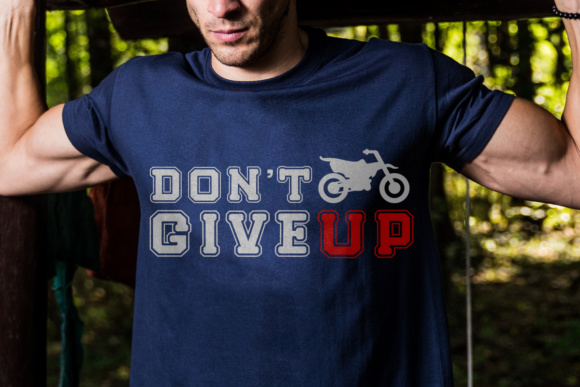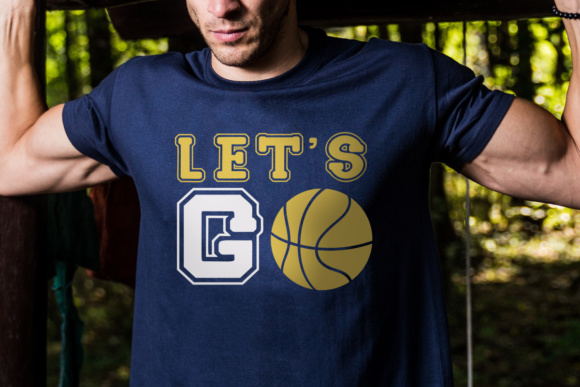
About Push Yourself Font
Push Yourself is a dynamic and sporty font that embodies a sportive look and feel. With its bold and energetic design, this font is perfect for a wide range of sports-related projects.
One of the standout features of Push Yourself is the set of 26 lowercase sport-themed dingbats. These dingbats are unique and add a playful touch to your designs, allowing you to incorporate sport-related symbols and icons seamlessly. Whether you’re designing team gear, sport banners, game invitations, or any other sports-themed project, these dingbats provide a creative element that captures the essence of athleticism and competition.
The sporty aesthetic of Push Yourself makes it a great choice for various sports-related designs. From team logos and uniforms to event posters and social media graphics, this font adds a sense of excitement and energy to your visual compositions. The bold letterforms and stylish curves create a visual impact that resonates with sports enthusiasts and athletes alike.
In addition to its sport-themed dingbats, Push Yourself offers a wide range of uppercase and lowercase characters, numbers, and punctuation marks. This versatility allows you to create custom typography and tailor your designs to suit your specific needs. Whether you want to create motivational quotes, display headlines, or add a sporty touch to your overall design, this font provides the tools to bring your vision to life.
Whether you’re a sports team, a fitness brand, or an individual passionate about sports, Push Yourself empowers you to create captivating and engaging designs that resonate with your target audience. The sportive look and feel of this font inspire determination, motivation, and a competitive spirit.
In summary, Push Yourself is a sporty font that combines a dynamic design with lowercase sport-themed dingbats. It’s an excellent choice for creating team gear, sport banners, game invites, and various other sports-related designs. Let the energetic vibe of Push Yourself propel your creativity and inspire sports enthusiasts around the world.